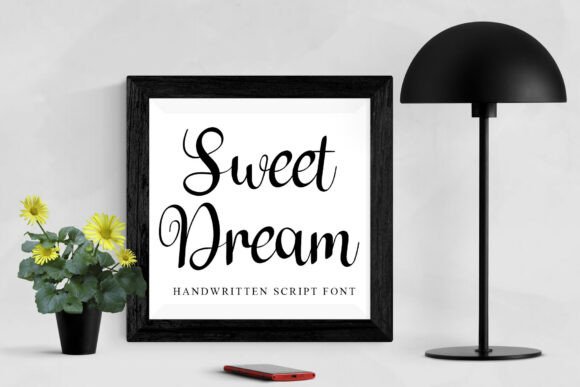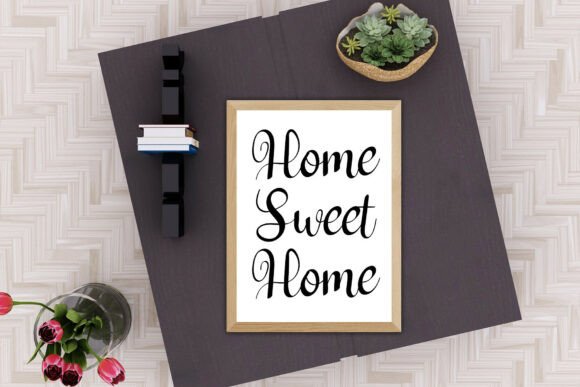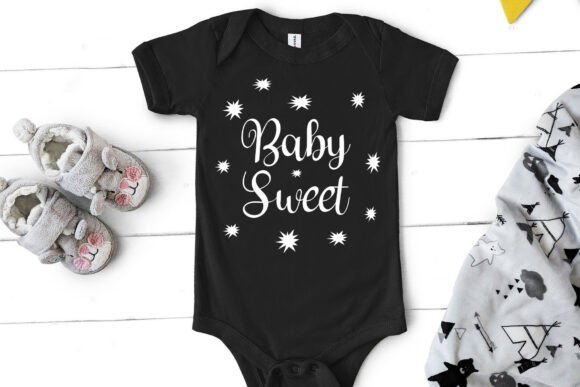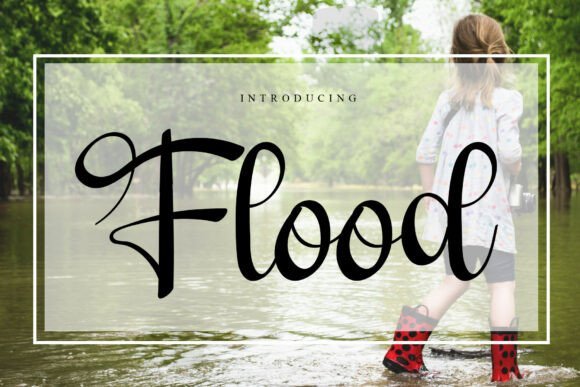
Introduction to Flood Font
Flood is a unique and elegant font specially designed just for you.
This font is made with a professional hand touch and is perfect for your projects This font is very suitable for use in your work projects, all greeting cards from wedding invitation cards, birthdays, all types of parties.
Flood Font offers exceptional quality and versatility, making it a valuable addition to your design toolkit. Whether you’re creating for personal projects or commercial use, Flood Font delivers professional results.